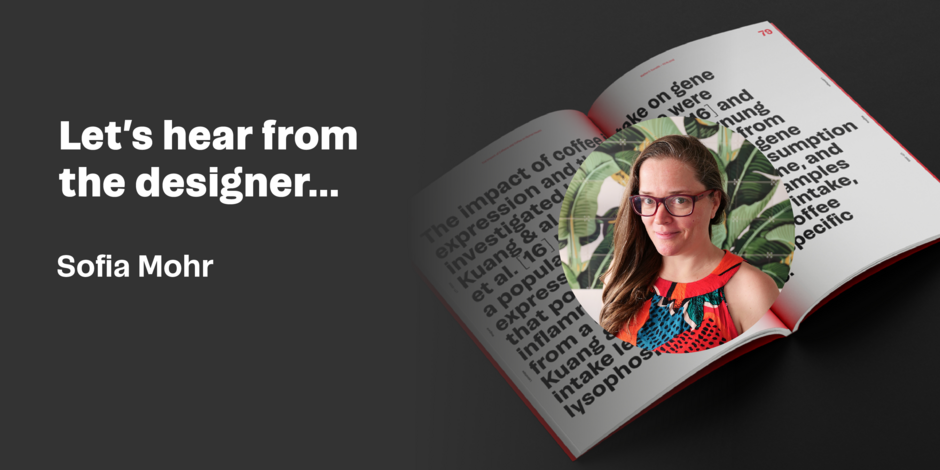
#03 Campeche by Latinotype
Q1: Where did the idea for the typeface come from? Did you set out to address a specific use or suite of the application? Was this a design you’d had in mind for a while?
Ans: Campeche’s initial idea came from expanding my Seriguela font (which is very condensed) to other widths until reaching the extended one. But, during this process, Campeche was gaining its own characteristics such as the “c” and “e”, which are the letters that give it a special and unique personality. For many years I had the idea of ​​making a very broad system that would allow for diverse uses, and Campeche emerged after studying many families with weight, width, and contrast variations as well as variable fonts.
Q2: What should graphic communicators know about the typeface, or how will the family of fonts help them create better designs?
Ans: Campeche was created with the objective of being a very broad and versatile family (totaling 54 fonts + variable version) allowing various uses. It is made up of two subfamilies, one high contrast and one low, each with nine weights: from thin to heavy, as well as 3 width variations: condensed, normal, and expanded. Campeche has short ascenders and descenders, allowing for tight blocks of text. In addition, the possibility of combining high contrast weight with low contrast weight (title and subtitle) is a plus for any designer to use.